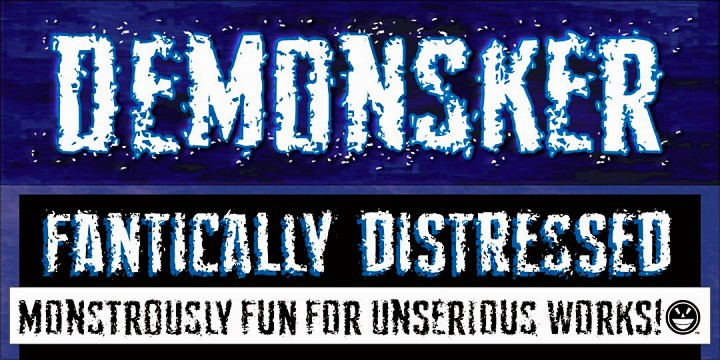
Demon Sker by Michael Gene Adkins Ready for some fanatical distressing of the narrows? Demon Sker takes your stress to entirely new depths. Down, down, down, goes the rigid structure of the letterforms. All that remains are the scogs of all that was clean and straight. The filth stays behind. Demon Sker is the result. Honest font users who use this font commercially are asked to donate $5 USD at paypal.com. Send payment to the_fontry@yahoo.com. For more questions about this font or its commercial use please feel free to contact us for more details at: the_fontry@yahoo.com or visit the Fontry website http://www.thefontry.com/ |